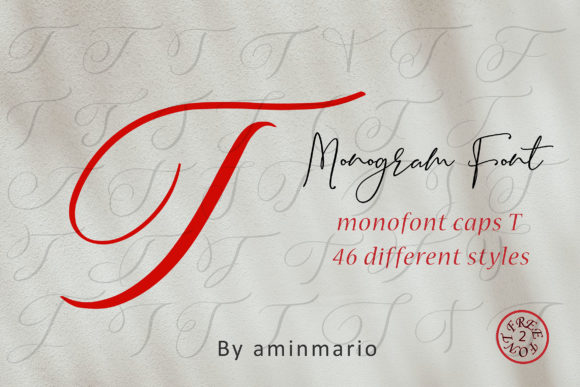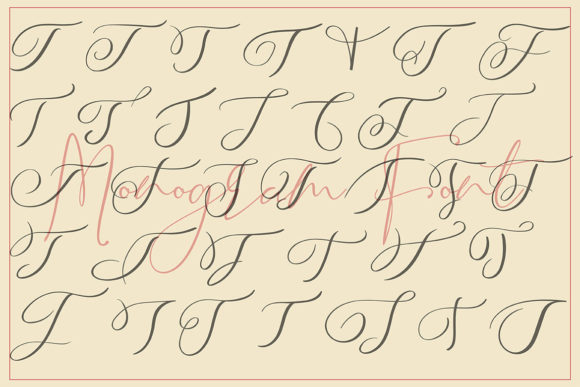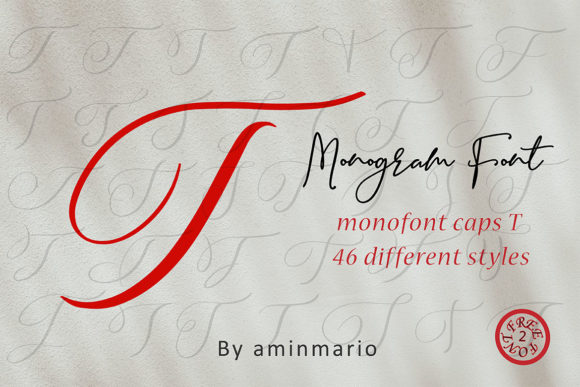
Monogram T | Monofont Caps T Font
This MONOGRAM is natural handwriting of capital T with 36 different styles.
This is not for writing words or sentences, but for monograms. Bonus 2 Font that contains the uppercase and lowercase to support it.